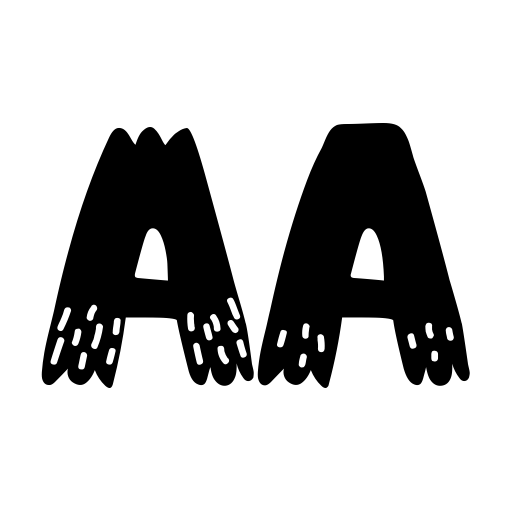
Cartoo Nature Font
Cartoo Nature Font is a jungle vibe kids font, with funny and happy feelings all around it. Suit perfectly for Online Games, posters, movie titles, fast food menus, magazines, youtube covers, youtube thumbnails, social media page covers, and so on. This free typeface was designed by a talented Tokokoo Studio. If you like it don’t forget to check out the full version.